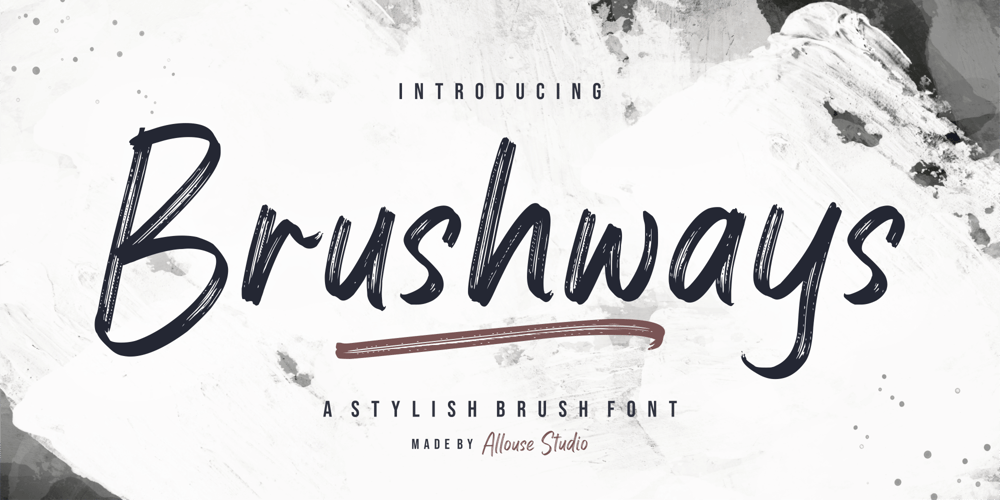
Brushways Font Family was designed by Fachrizal Yusuf and published by Allouse Studio. Brushways contains 1 styles and family package options. Proudly Presenting, Brushways A Stylish brush FontBrushways is perfect for any titles, logo, product packaging, branding project, megazine, social media, wedding, or just used to express words above the background.Brushways also come with Multi-Lingual Support.Enjoy the font, feel free to comment or feedback, send me PM or email. Thank You!